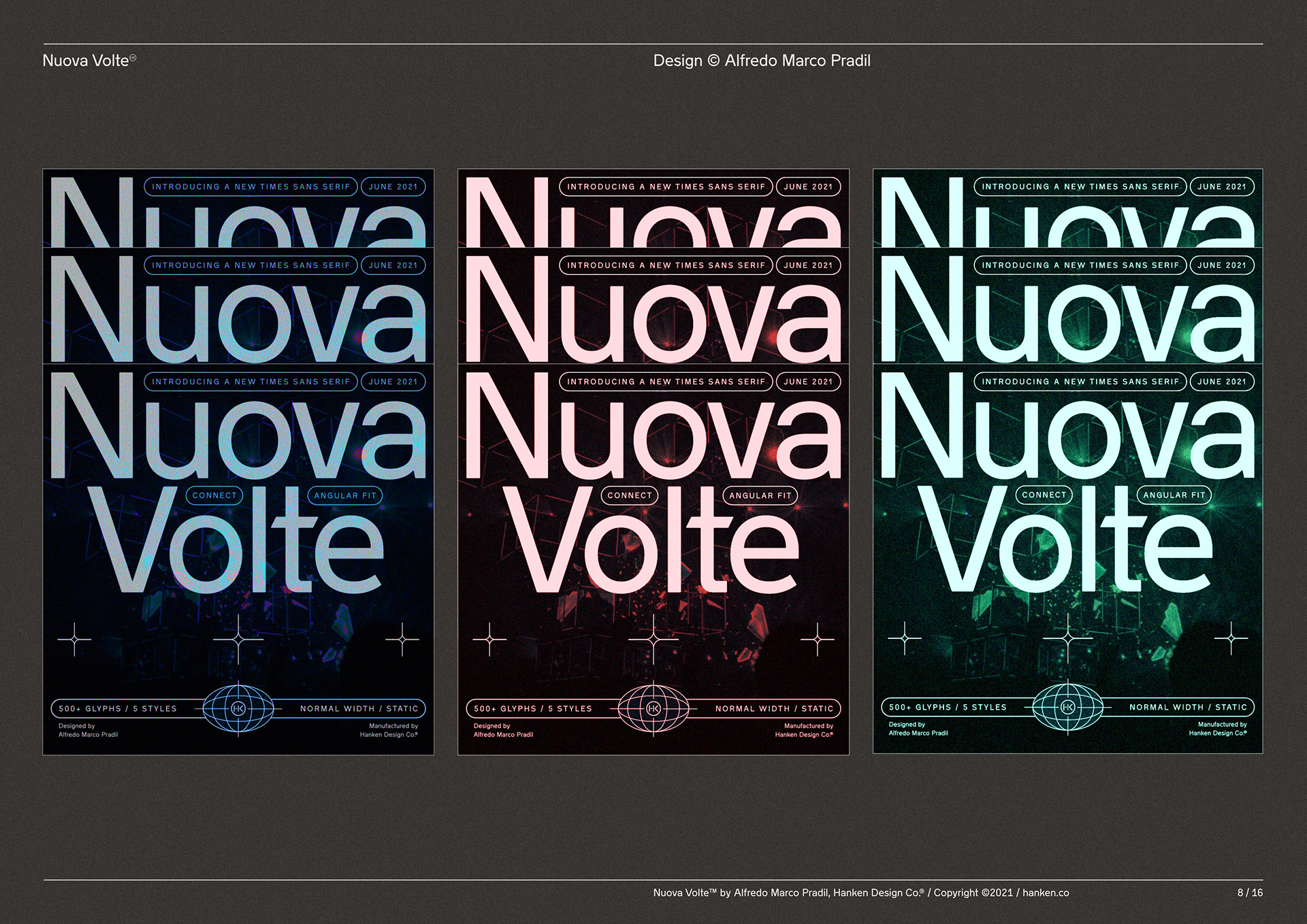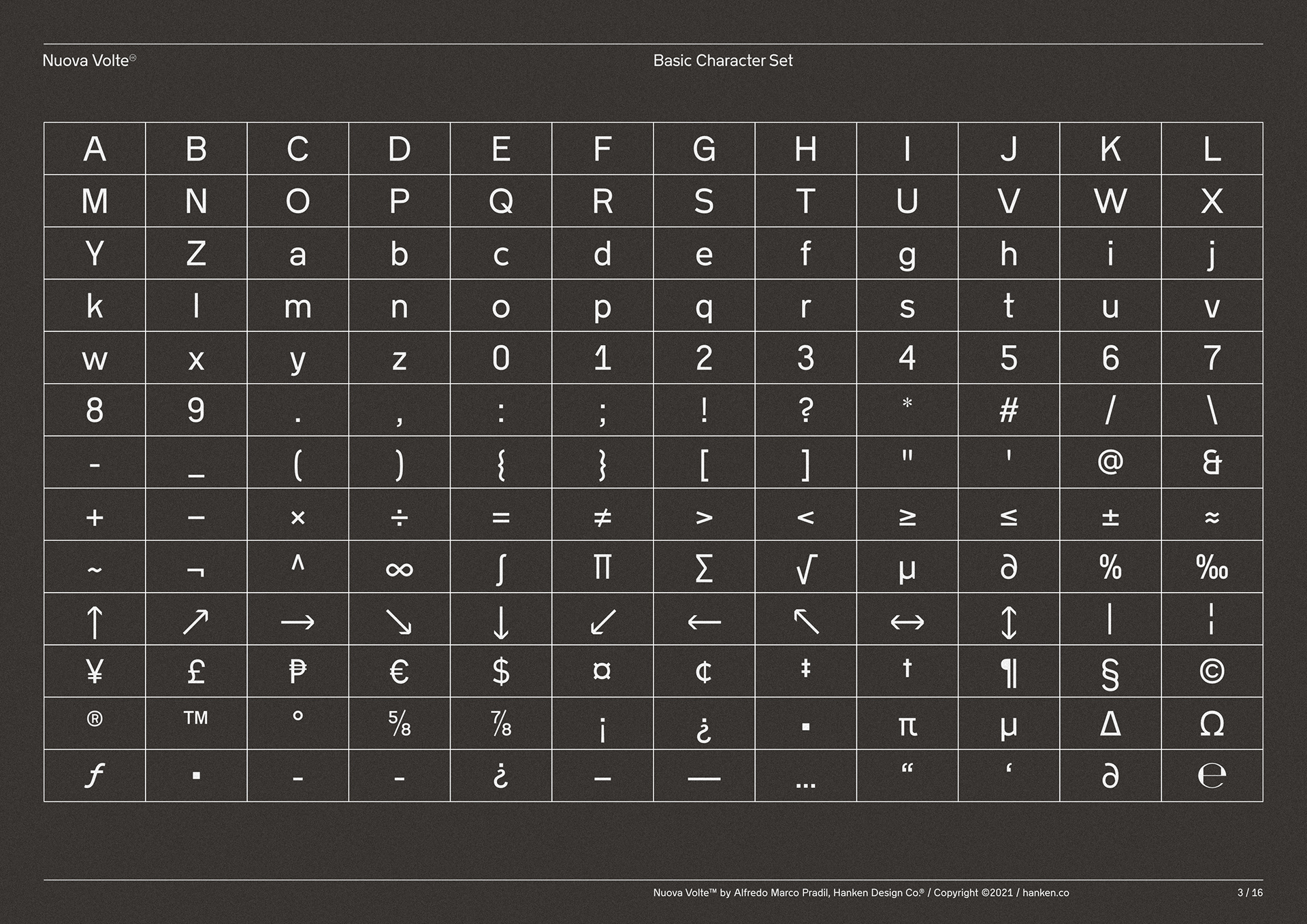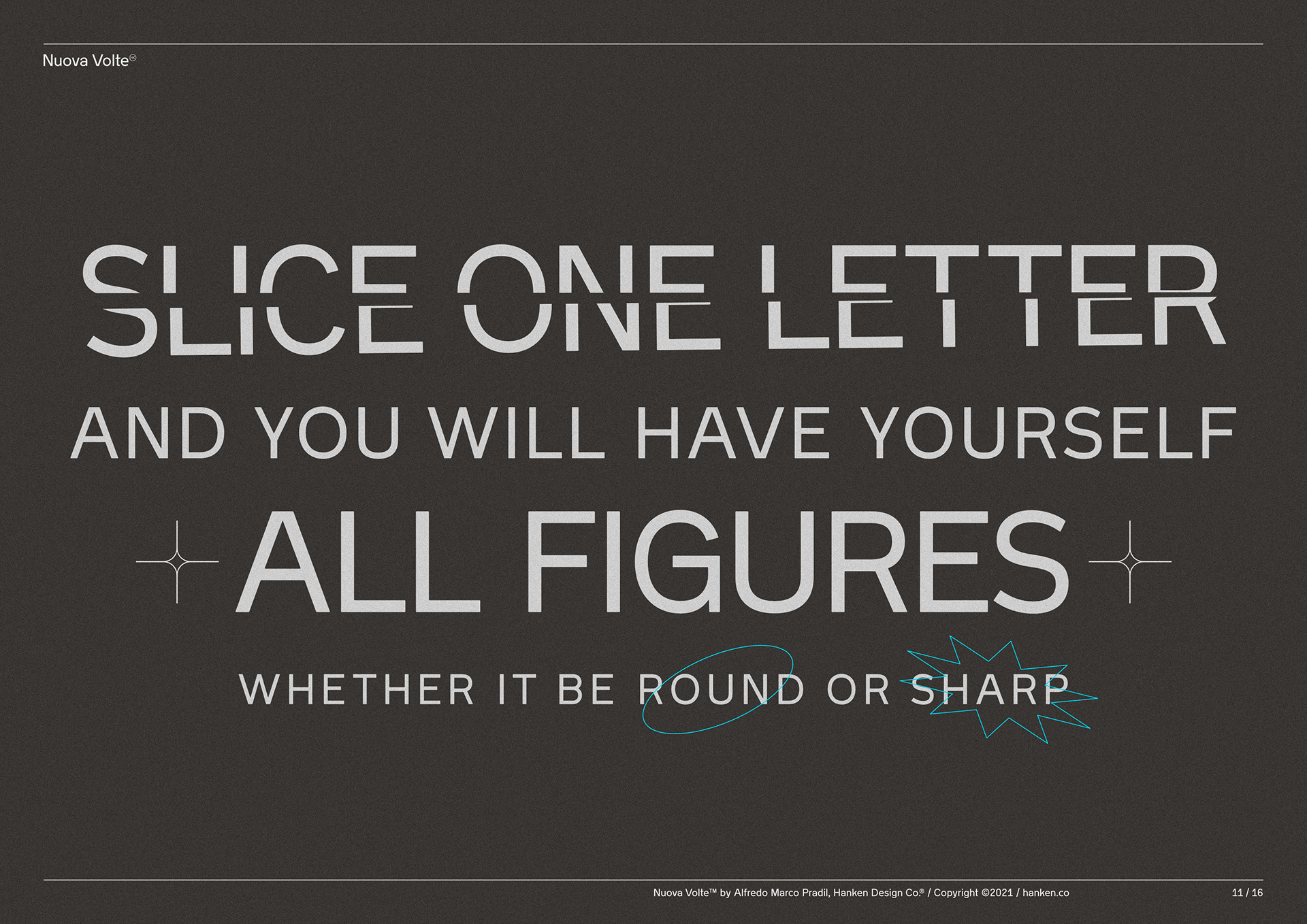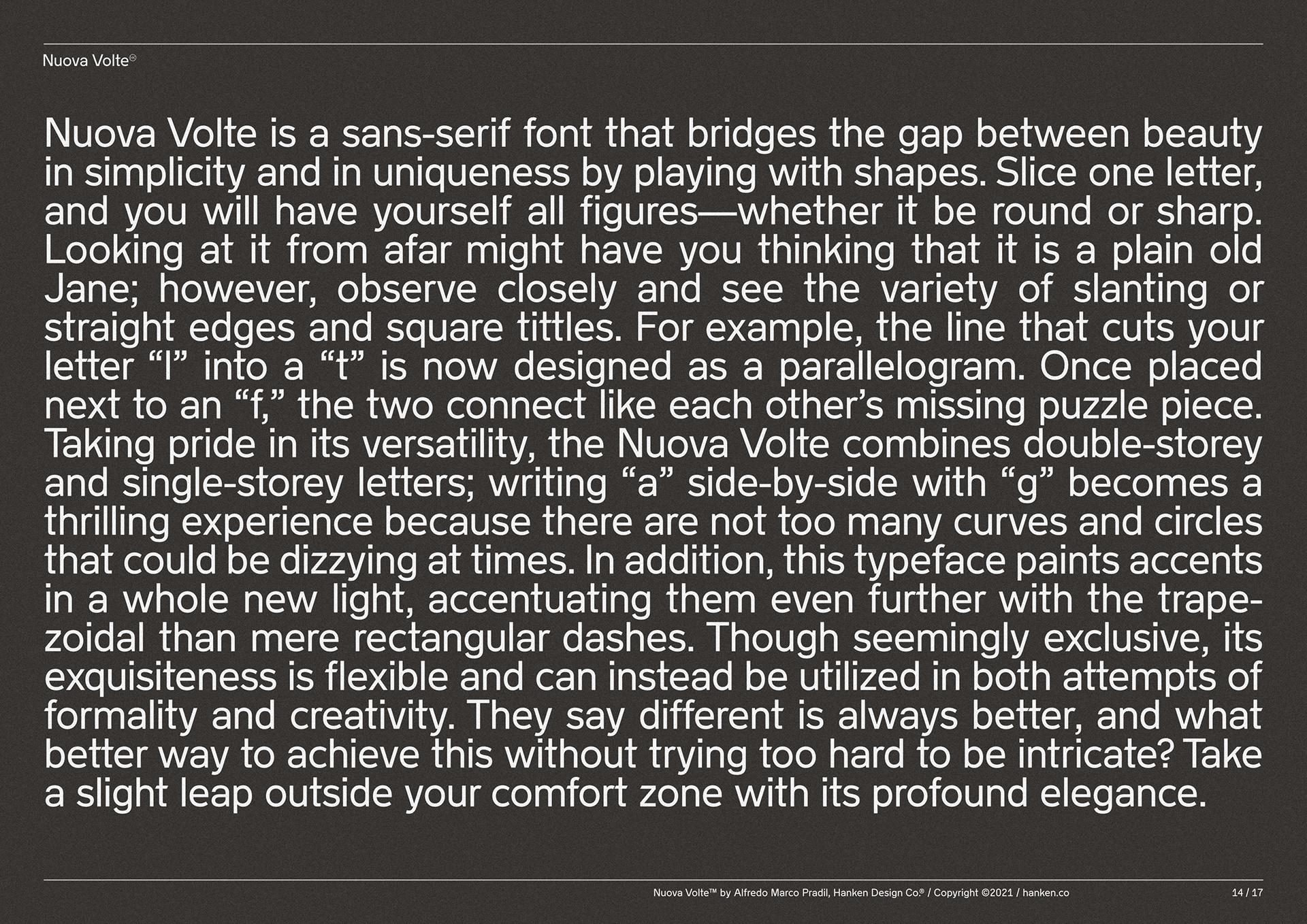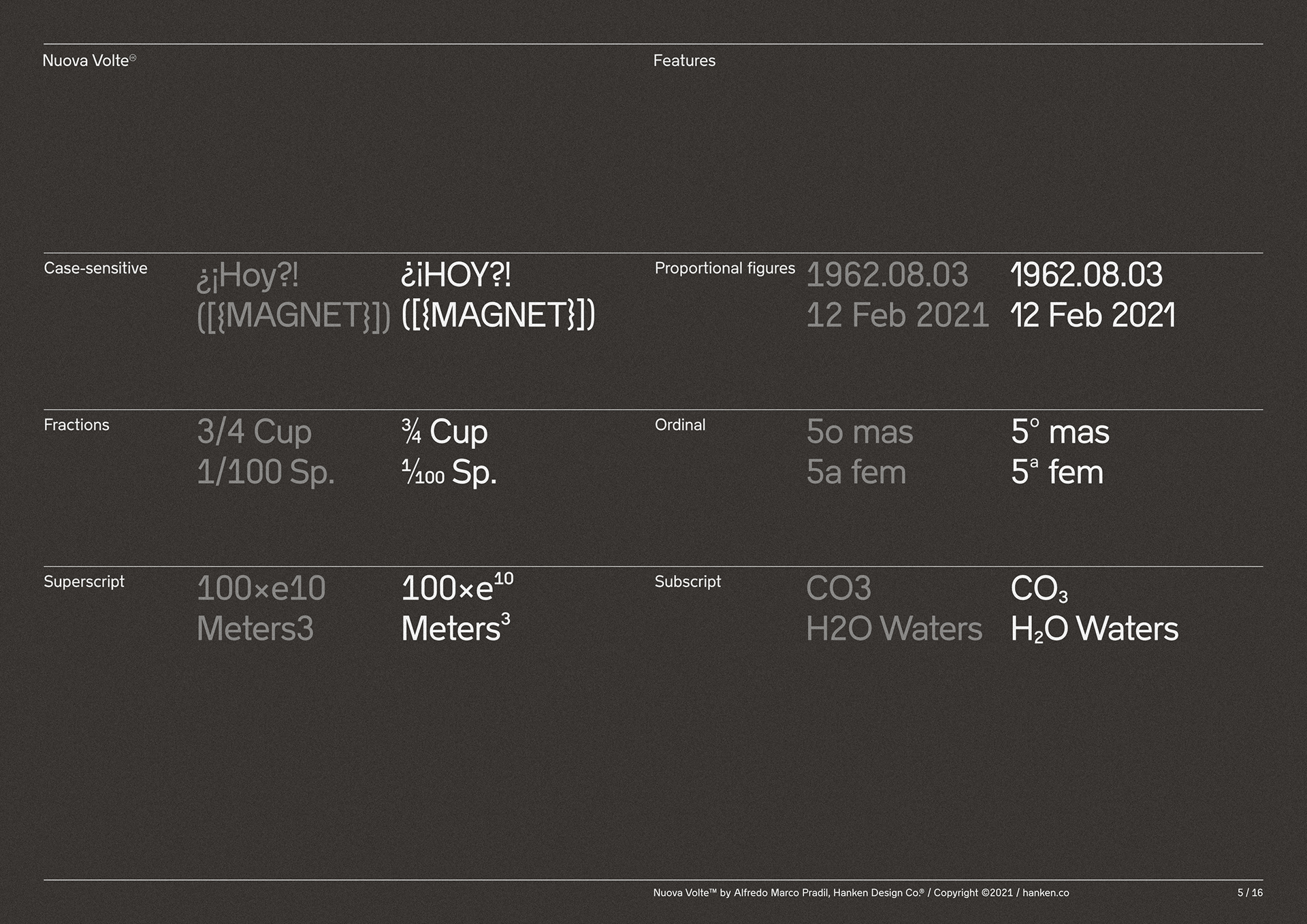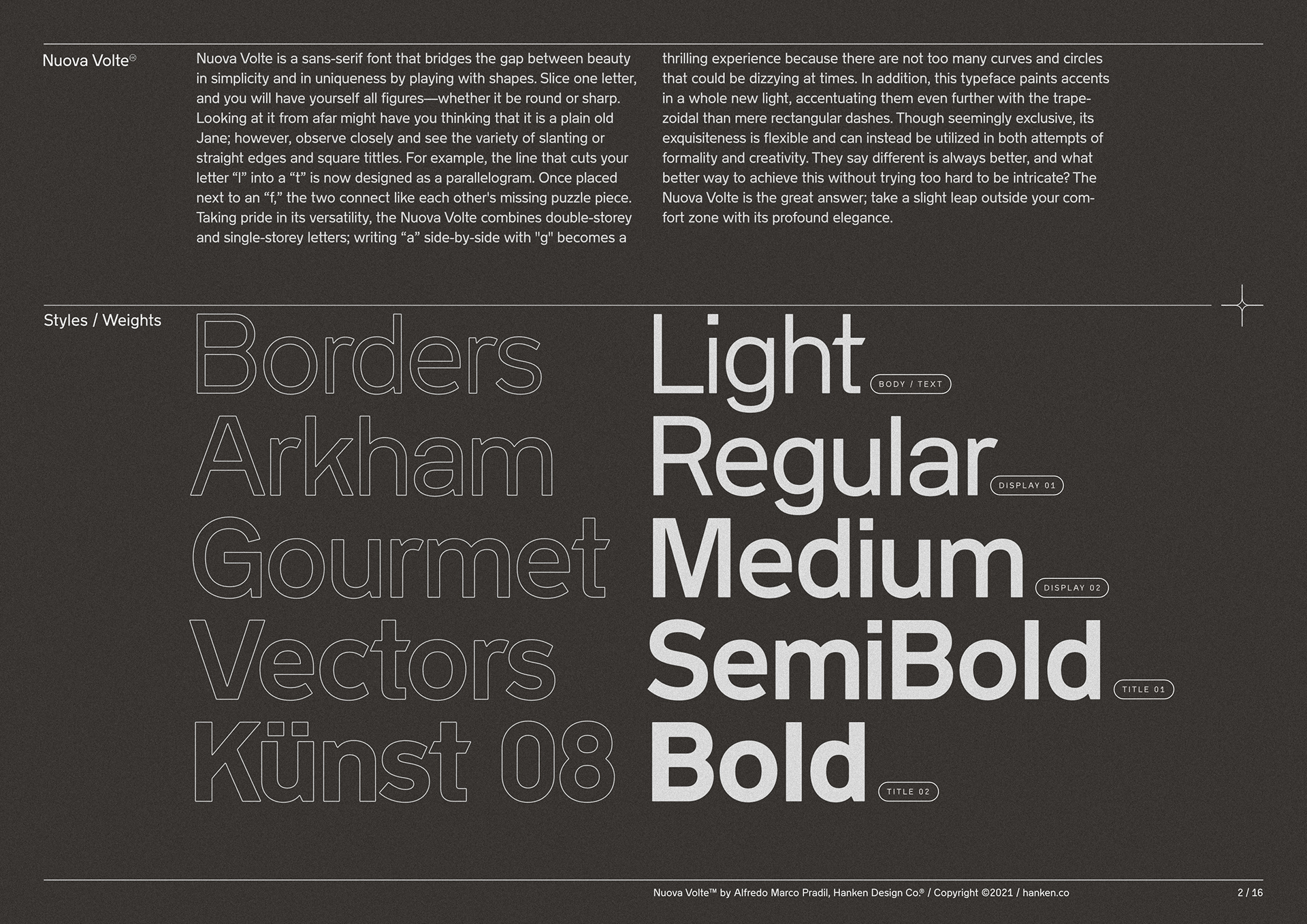
Introducing the Nuova Volte Typeface
Nuova Volte is a sans-serif font that bridges the gap between beauty in simplicity and in uniqueness by playing with shapes. Slice one letter, and you will have yourself all figures—whether it be round or sharp.
Looking at it from afar might have you thinking that it is a plain old Jane; however, observe closely and see the variety of slanting or straight edges and square tittles. For example, the line that cuts your letter “l” into a “t” is now designed as a parallelogram. Once placed next to an “f,” the two connect like each other’s missing puzzle piece. In addition, this typeface paints accents in a whole new light, accentuating them even further with the trapezoidal than mere rectangular strokes.
Though seemingly exclusive, its exquisiteness is flexible and can instead be utilized in both attempts of formality and creativity. They say different is always better, and what better way to achieve this without trying too hard to be intricate? Take a slight leap outside your comfort zone with Nuova Volte’s profound elegance.